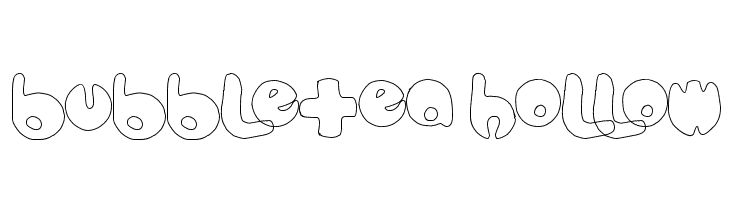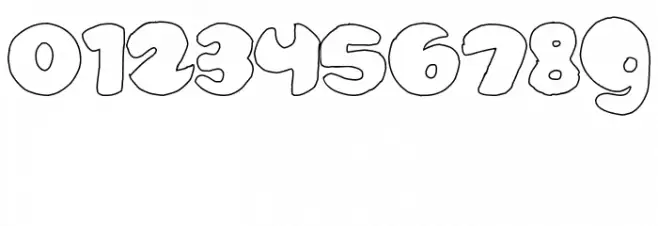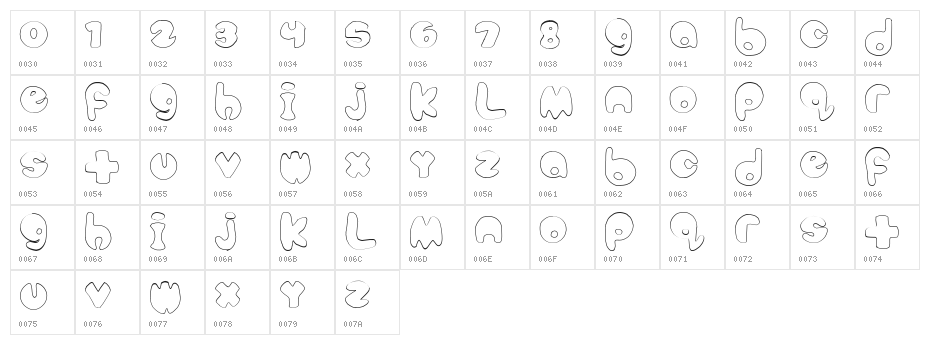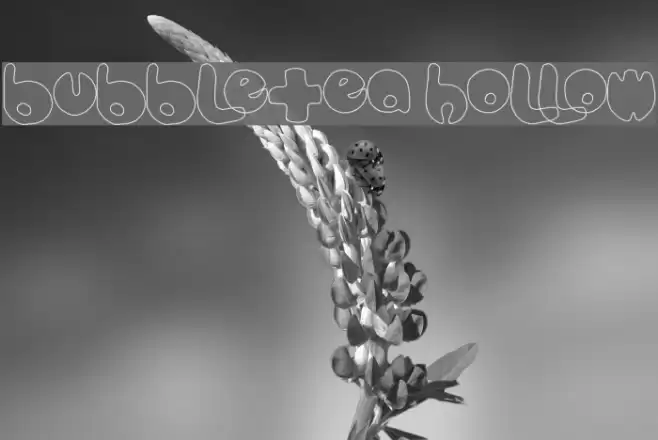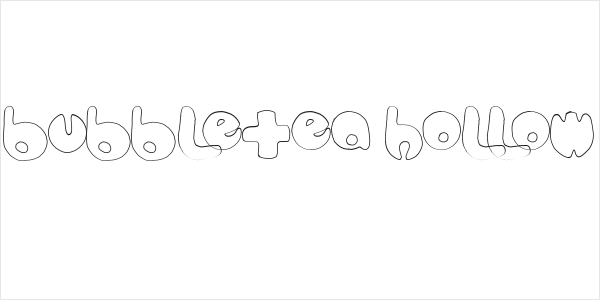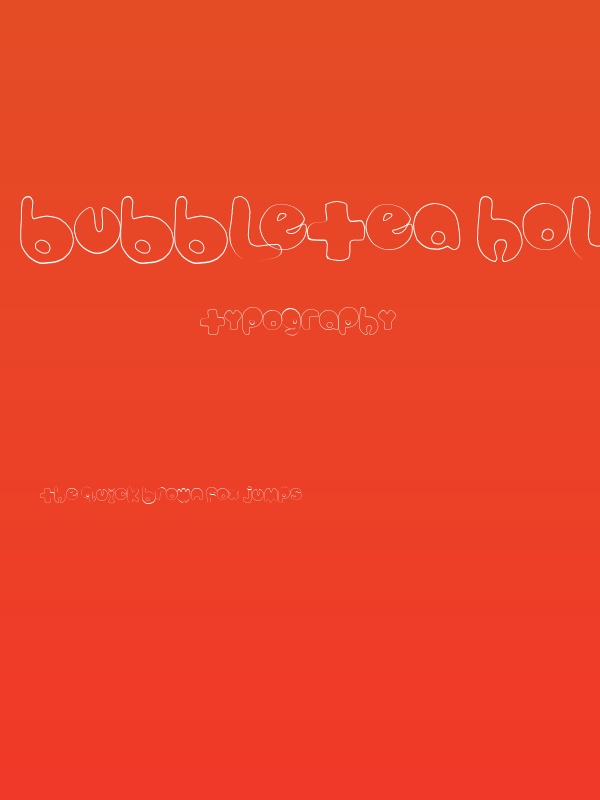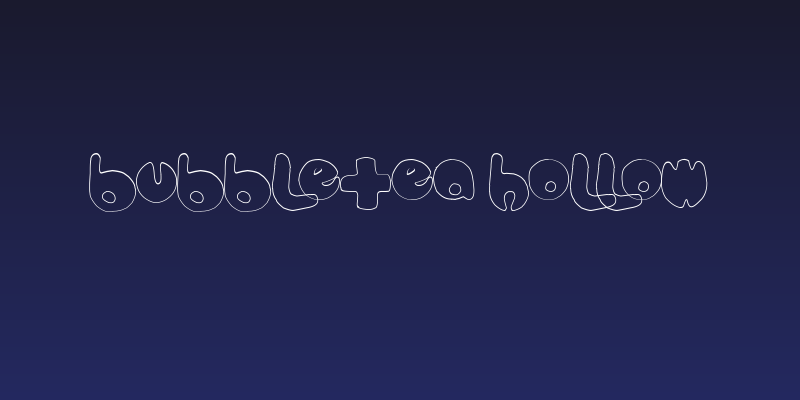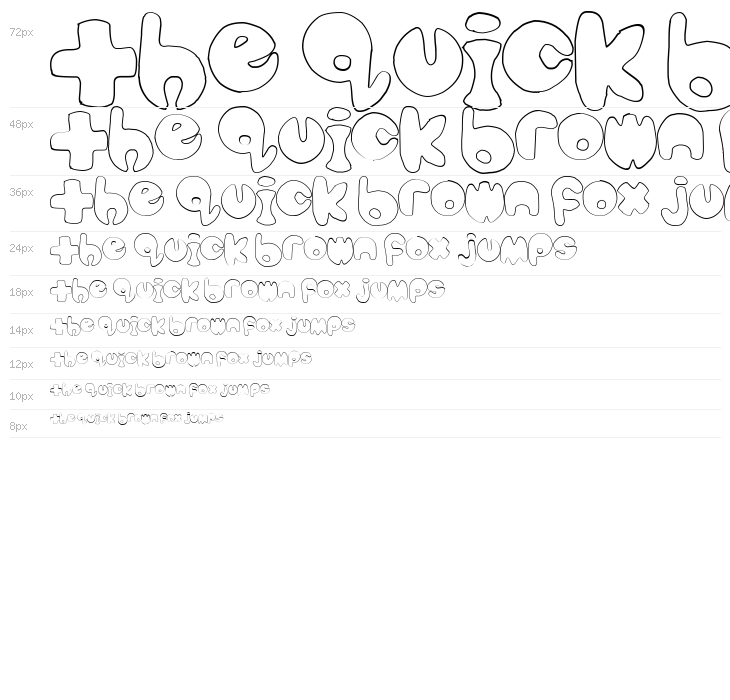
bubbletea hollow Font
bubbletea hollow Description
This playful and whimsical font features hollow, bubble-like characters that convey a sense of fun and creativity. The rounded, inflated appearance of each letter gives it a unique, eye-catching style that stands out in any design. The font maintains a consistent thickness throughout, with smooth curves and a friendly, approachable aesthetic. Its hollow nature allows for creative use of color and background, making it versatile for various design projects. The characters are evenly spaced, ensuring readability while maintaining a playful tone. This font is perfect for projects that require a lighthearted and engaging visual element.